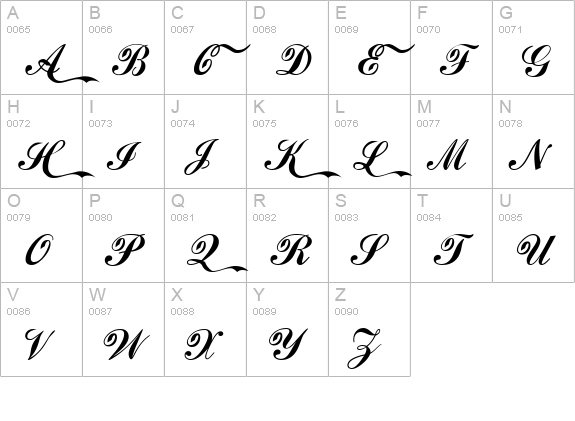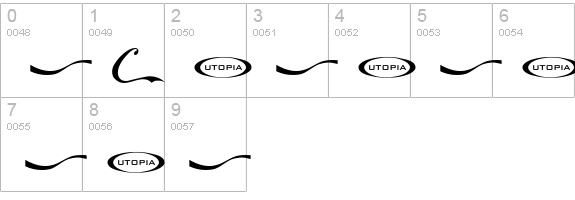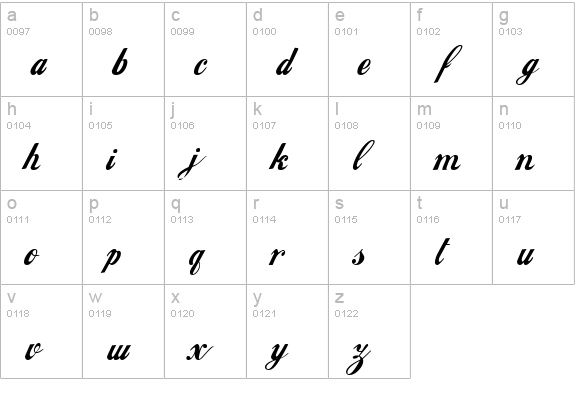
Loki Cola Font Details
Loki Cola font is a bold and eye-catching typeface that exudes a playful and modern feel. With its unique design inspired by vintage cola logos, this font is perfect for adding a touch of retro charm to your projects. The thick, rounded letters make a strong impact and are sure to grab attention. What makes Loki Cola font even more appealing is that it is completely free to download at FontsMarket.com. Whether you're designing posters, logos, packaging, or any other creative project, this font will add a fun and energetic vibe to your work. Don't miss out on this fantastic font - download Loki Cola today and let your creativity shine!